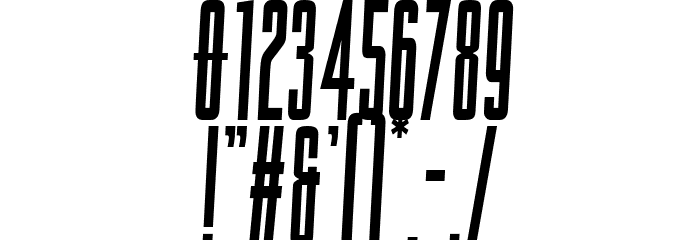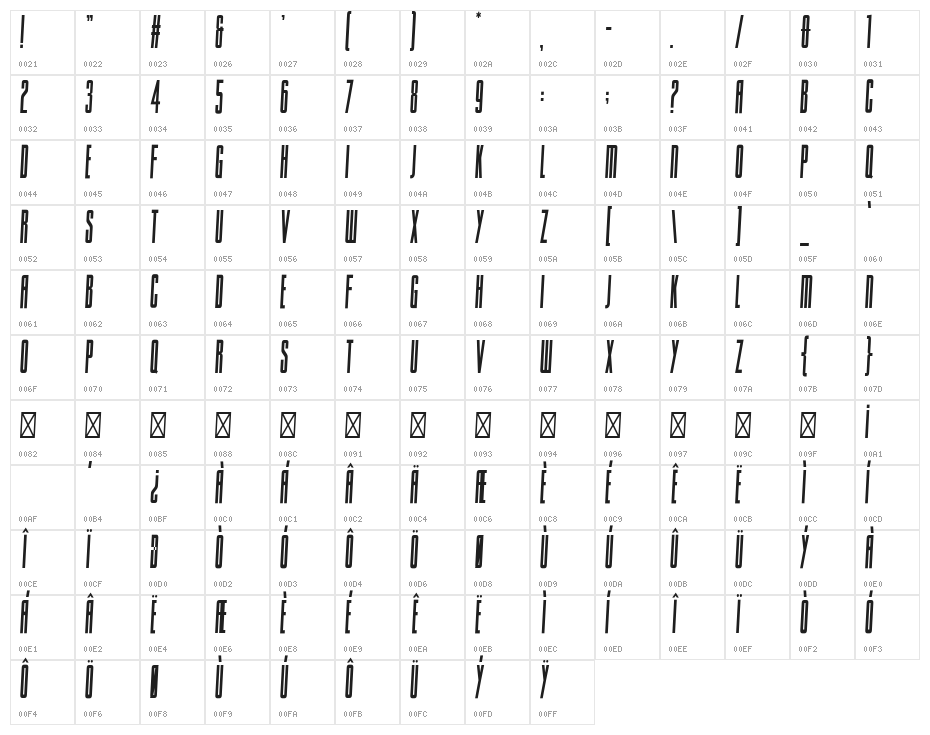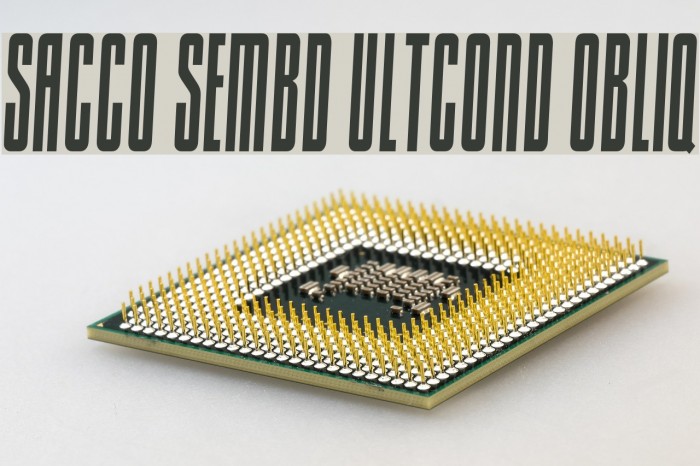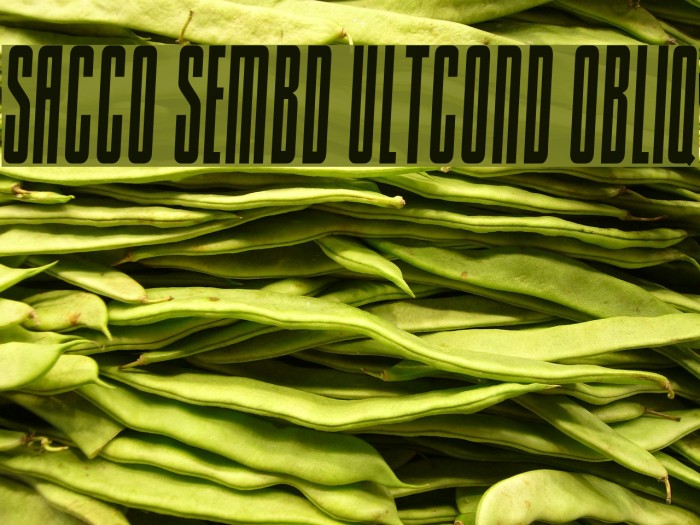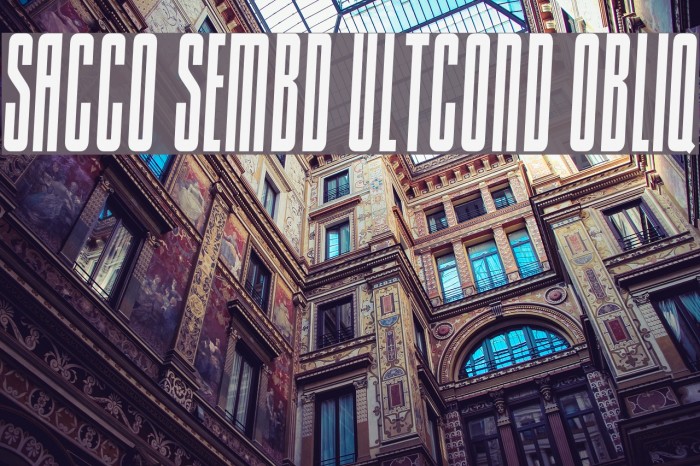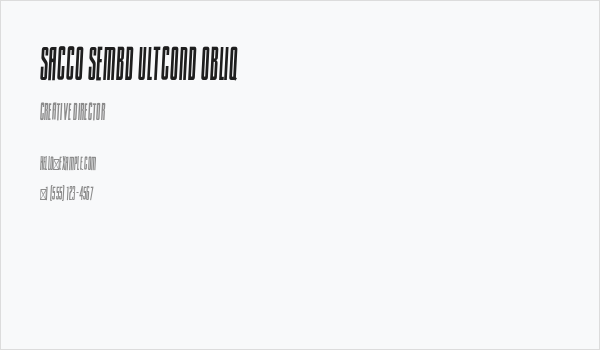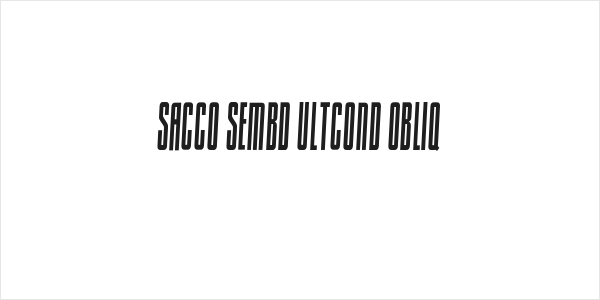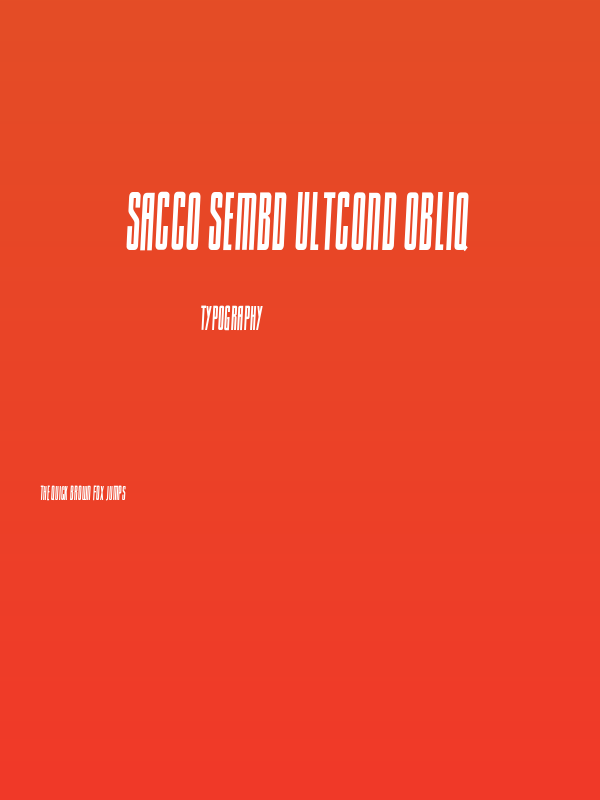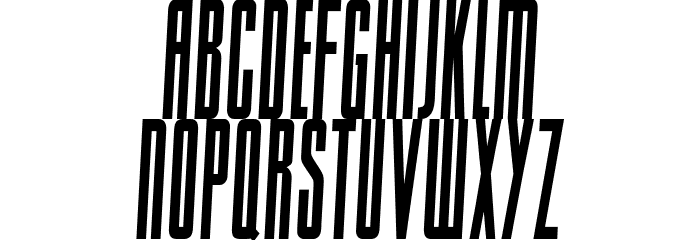
Sacco SemBd UltCond Obliq Font
Sacco SemBd UltCond Obliq Description
This font features a bold and condensed style with an oblique slant, giving it a dynamic and modern appearance. The characters are tall and narrow, emphasizing verticality and creating a striking visual impact. The uppercase and lowercase letters maintain consistent proportions, enhancing readability while retaining a unique flair. The numbers and special characters are designed to match the overall aesthetic, ensuring uniformity across all text elements. The font's sleek and streamlined design makes it suitable for contemporary projects that require a bold statement.